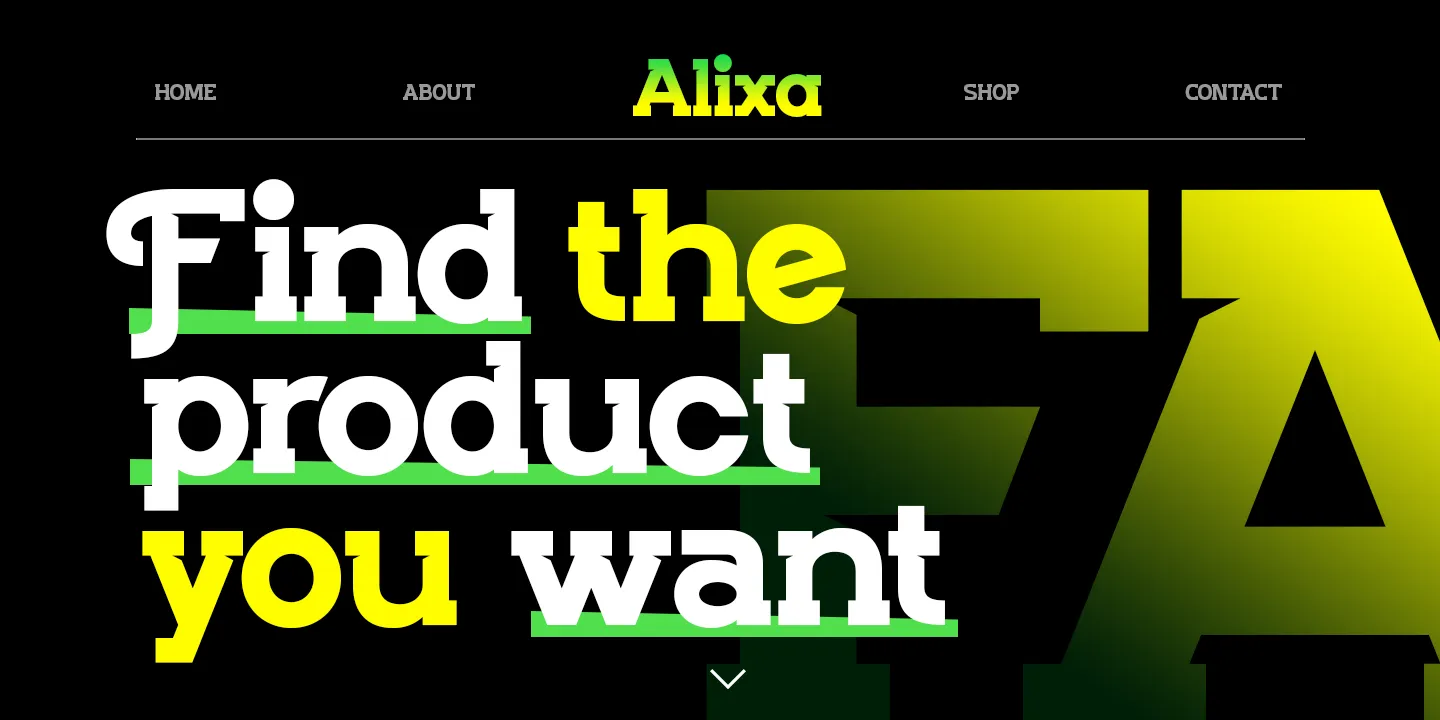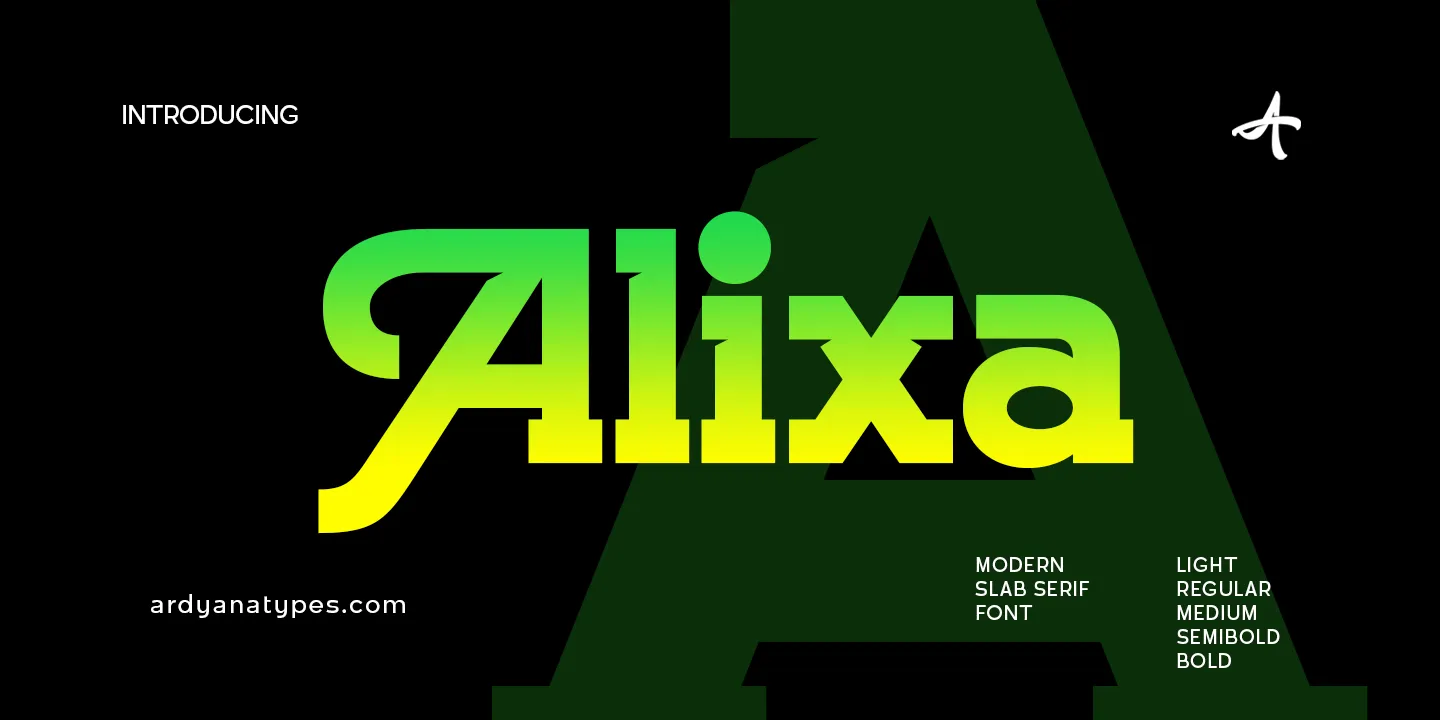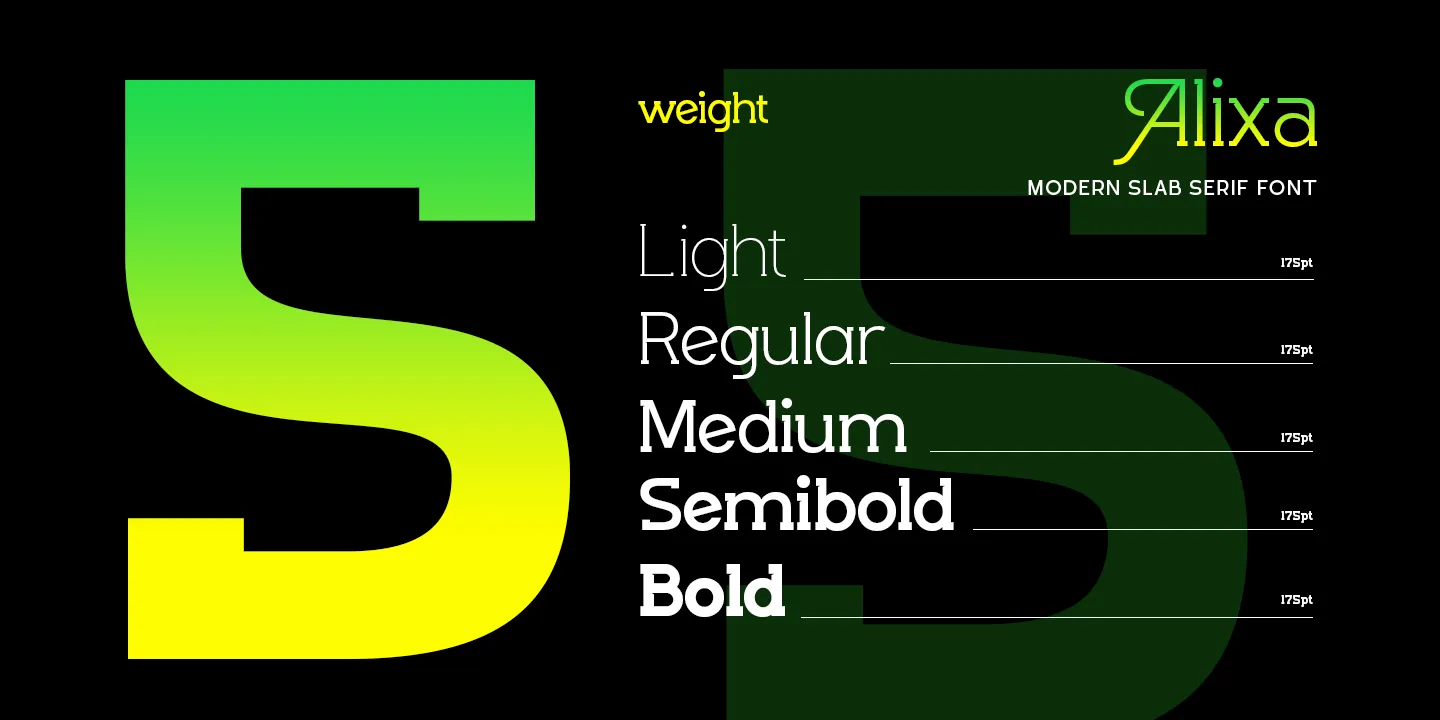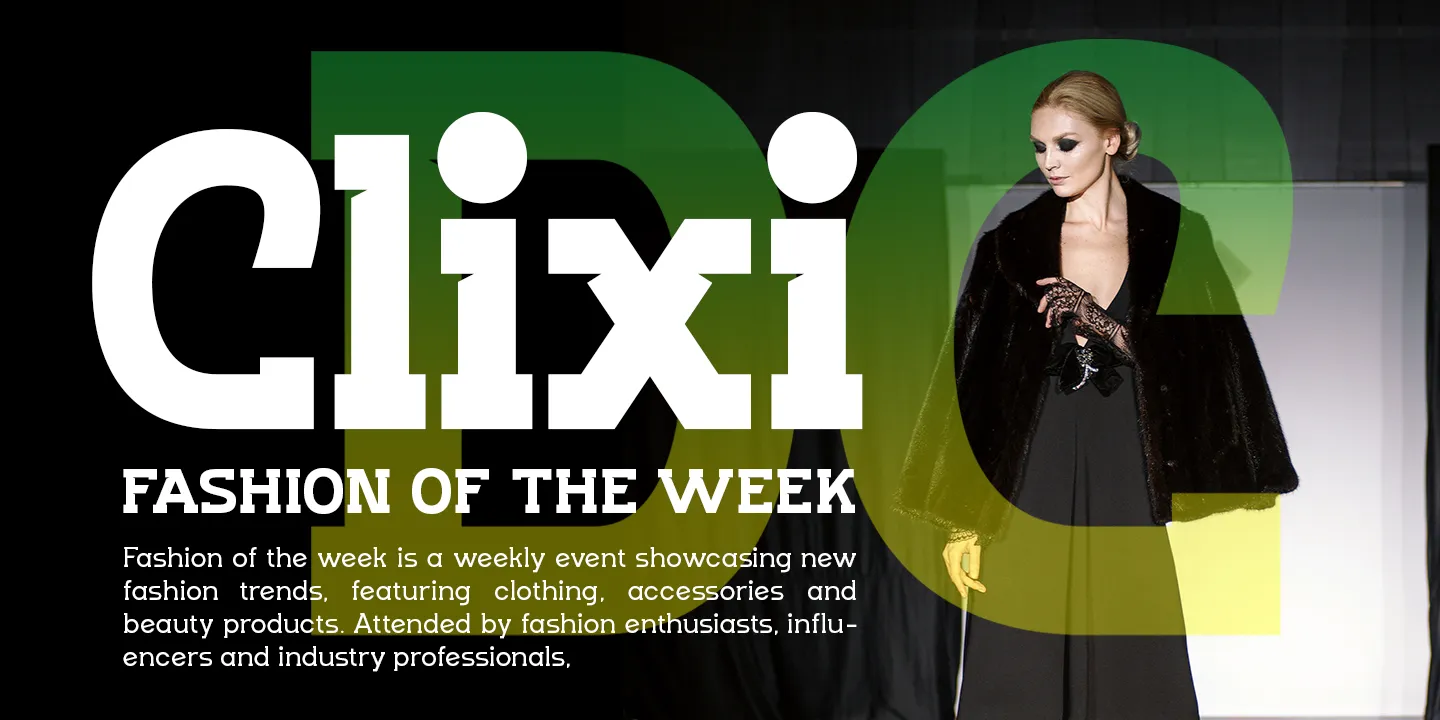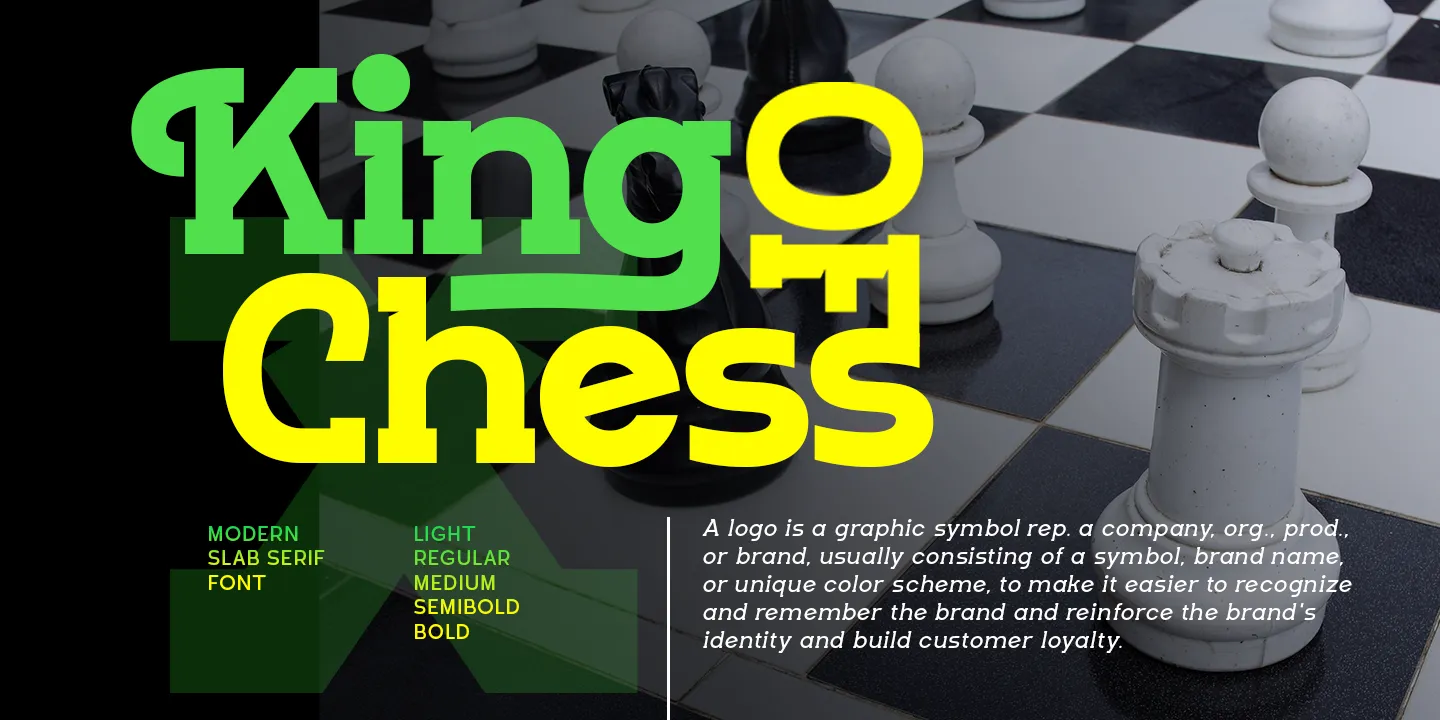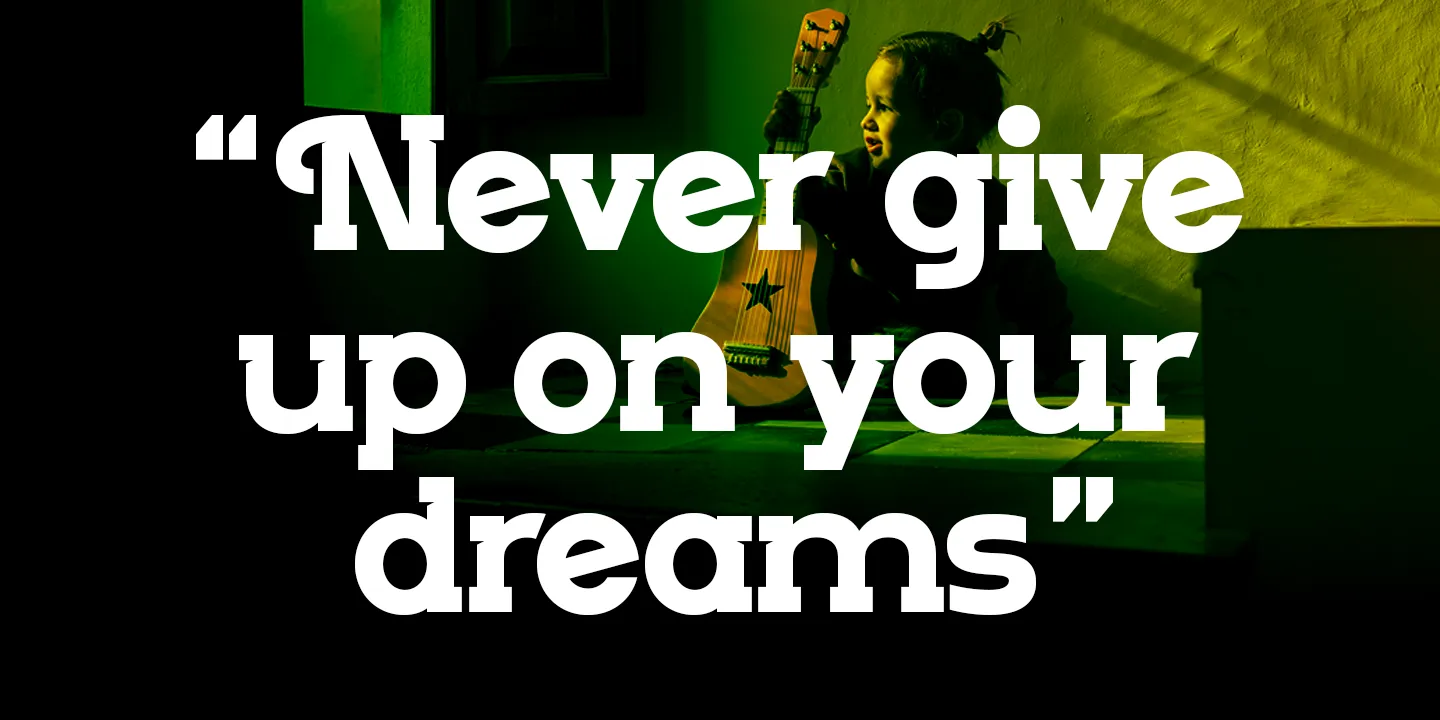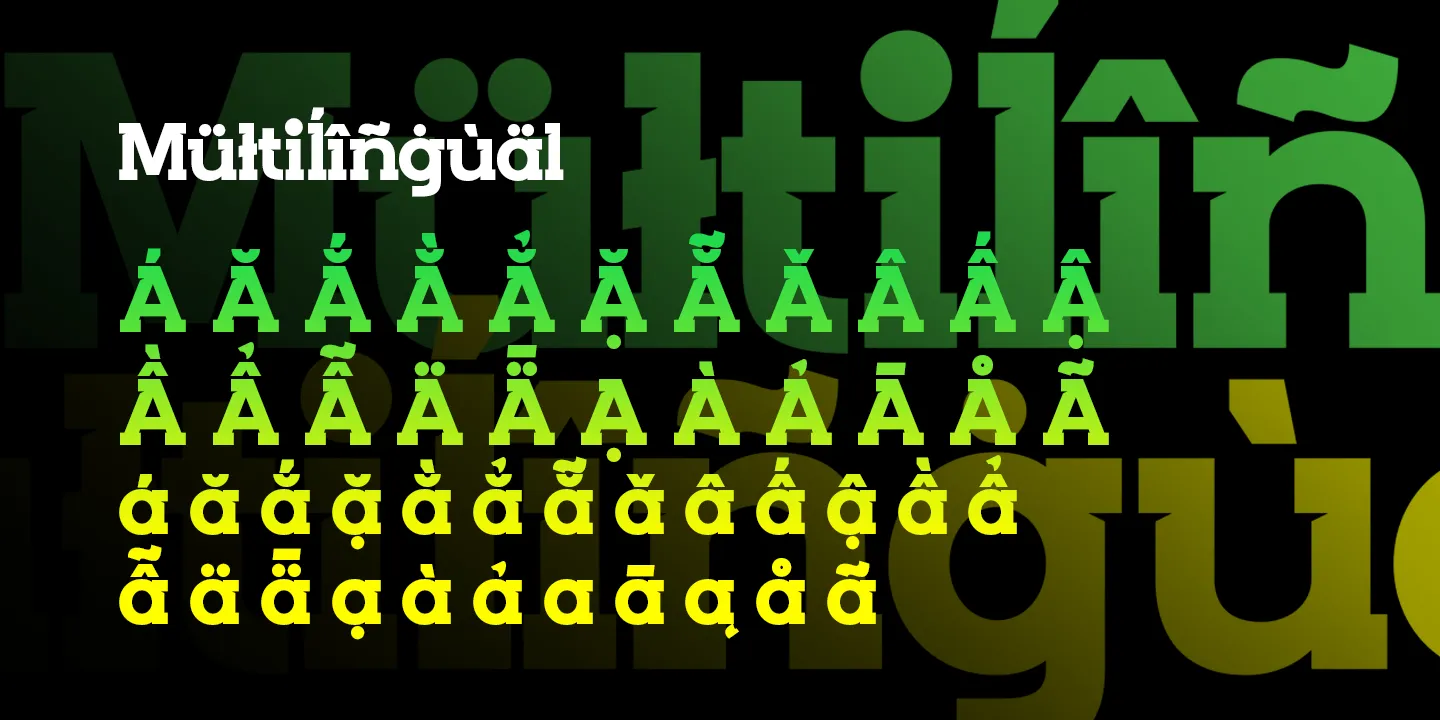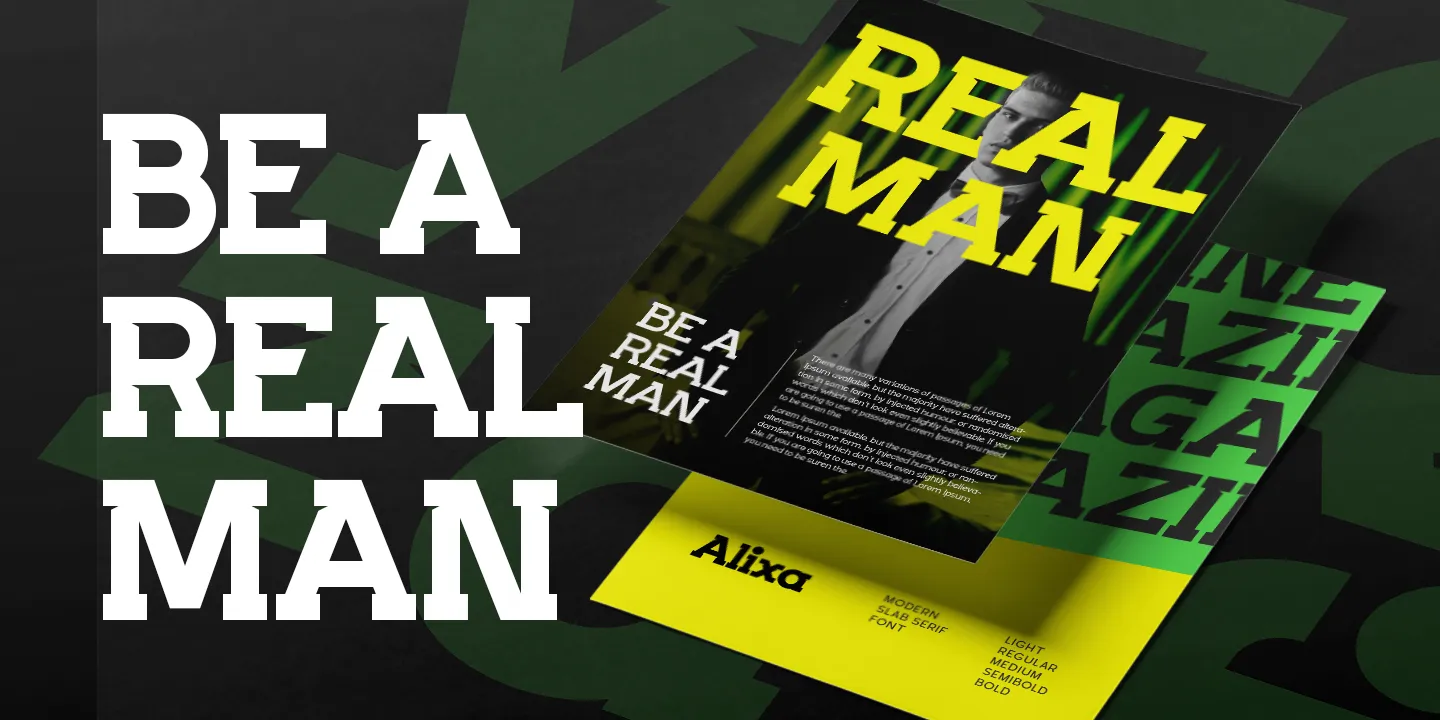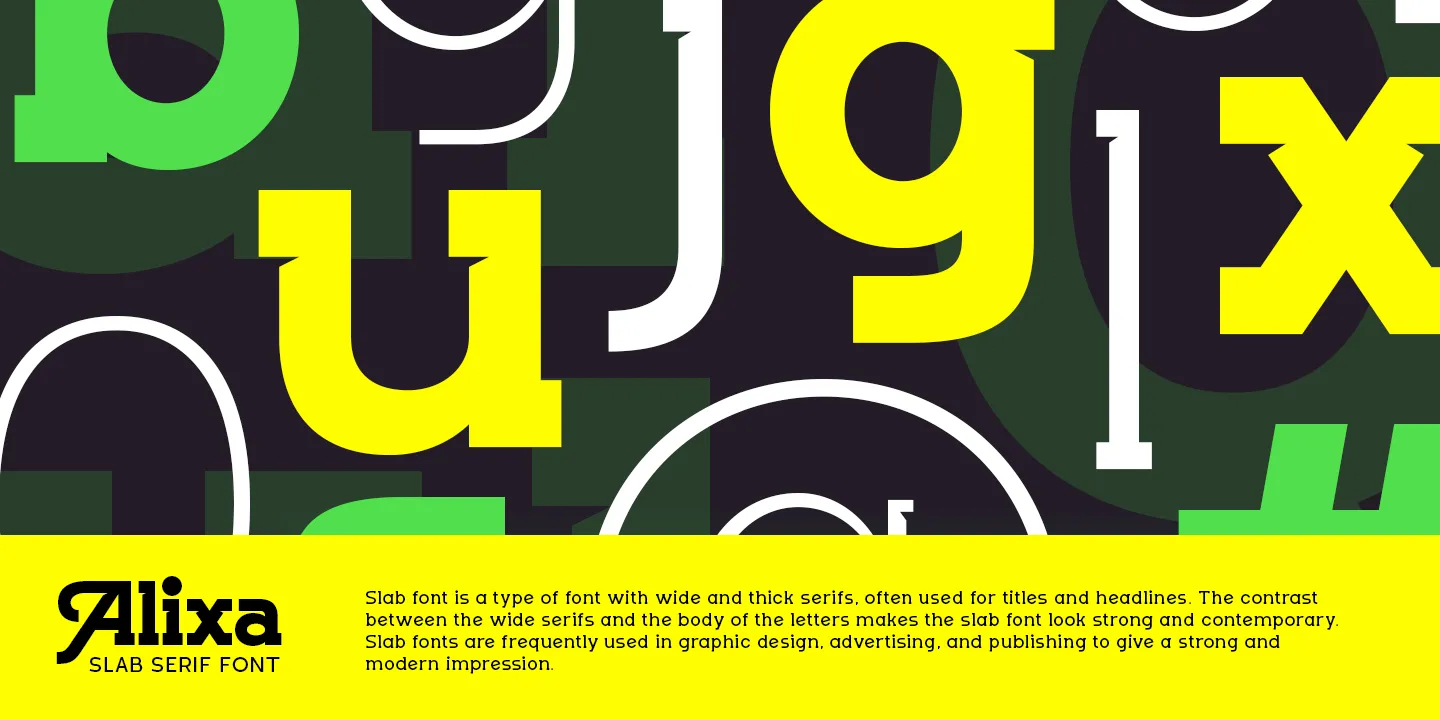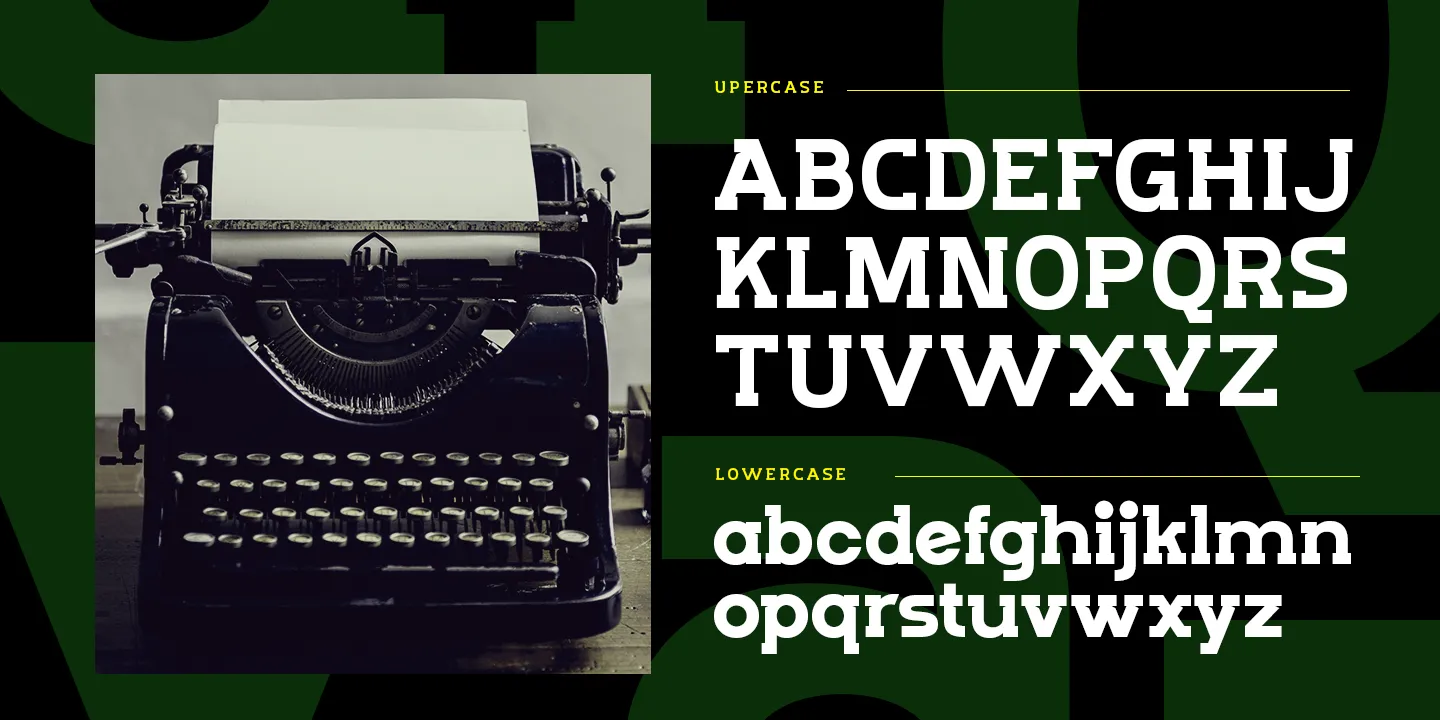
Alixa
The Alixa family is designed to provide you with the range of fonts that you need for your projects. The family consists of slim and elegant slab serif fonts, which are modern and retro at the same time. It includes several languages that allow Alixa to be used in all types of creative endeavours. It's perfect for use in any project from sports to posters and logos, branding, packaging design and so much more!
• ffi ffi
• ffj ffj
• ffl ffl
• fj fj
• fl fl